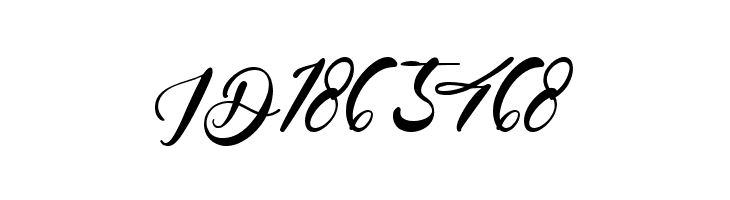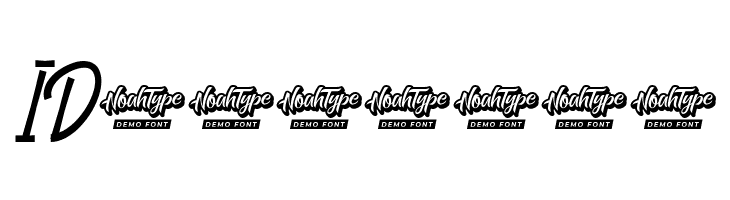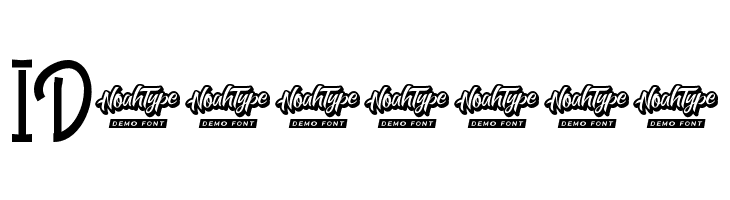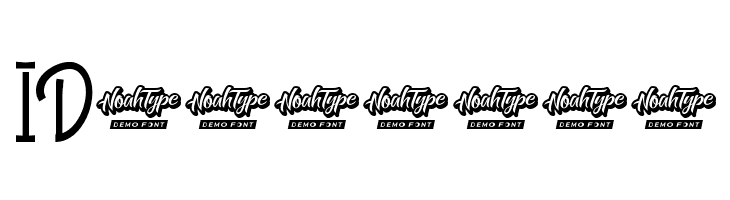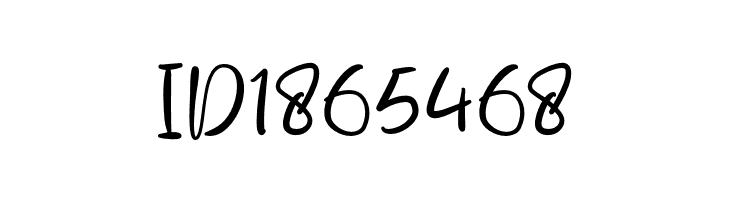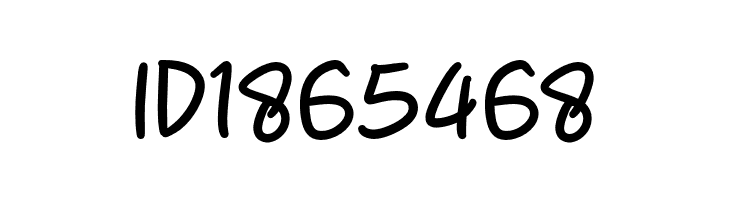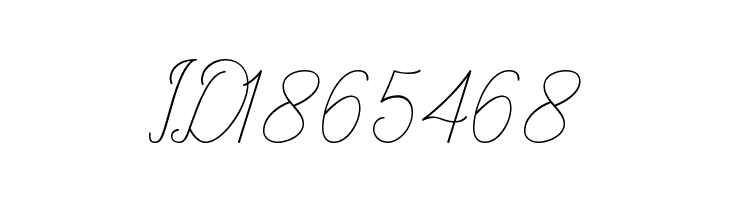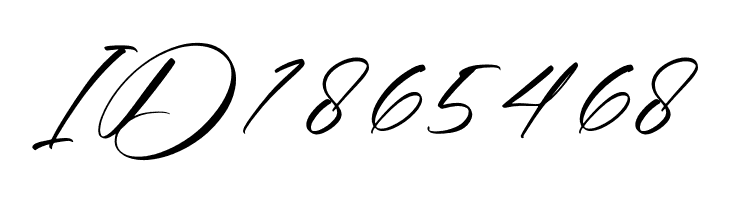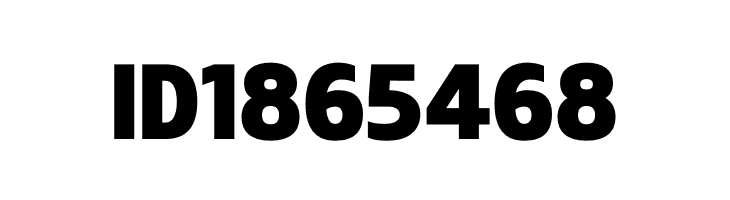
A modern, bold sans-serif font with geometric shapes and uniform strokes.
A sleek, modern font with thin, uniform strokes and a geometric influence.
A bold, angular font with a futuristic and aggressive design.
A modern, geometric font with rounded edges and a sleek, futuristic style.
A bold, geometric font with a futuristic and edgy design.
A bold, futuristic outline font with a three-dimensional effect.
A rugged, distressed font with a handcrafted, textured appearance.
A bold, gothic-inspired font with sharp, angular edges and intricate details.
A bold, modern font with clean lines and geometric structure.
A bold, geometric font with a modern and impactful style.
A modern, bold italic font with a dynamic and energetic style.
A bold, angular font with a futuristic and dynamic design.
A bold, modern font with tall, slightly condensed characters and minimal contrast.
A bold, dot-based font with a futuristic and playful design.
A tall, narrow font with a modern, geometric design.
A playful, handwritten-style font with a casual, comic book feel.
A flowing, cursive script font with elegant, connected strokes and a modern touch.
A bold, geometric font with a modern and structured design.
A pixelated, blocky font with a retro digital aesthetic.
A geometric, angular script with uniform line thickness enclosed in square boxes.
A bold, outlined font with a modern and playful style.
An edgy, hand-drawn font with a chaotic and energetic style.
A dynamic, hand-drawn font with sharp, angular strokes and an edgy style.
A distressed, explosive font with bold, chaotic characters.
A graceful and elegant script font with flowing cursive letters and decorative flourishes.
A bold, playful font with a hand-drawn, informal style.
A classic serif font with a vintage and elegant style.
An elegant, classic italic font with a traditional and sophisticated style.
A classic serif font with elegant, bold uppercase and consistent lowercase characters.
An elegant italic old-style serif font with a classic and sophisticated appearance.